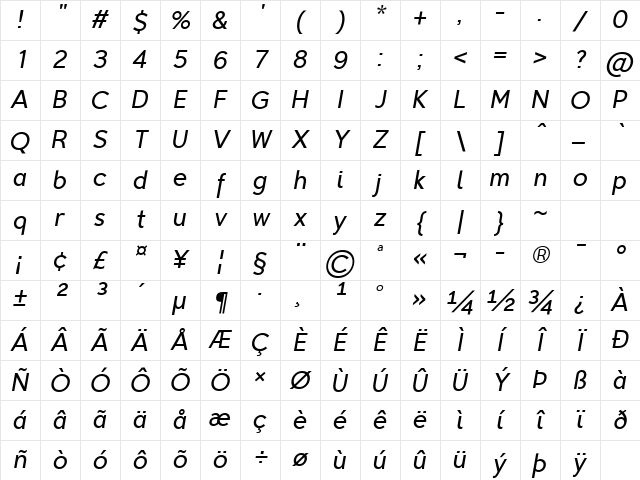
Triomphe Light Italic
Foundry: J￿r￿mie Dupuis
Designer: J￿r￿mie Dupuis
Design Context for Triomphe
Triomphe is a composed and adaptable typeface that performs quietly and consistently across a wide range of design contexts. The slanted form adds forward momentum and visual energy. Its slender proportions lend an understated elegance to any composition.
Pro Tip: Use Triomphe for emphasis, pull quotes, and subheadings where its slanted energy can add rhythm to the layout.
Who designed the Triomphe Light Italic font?